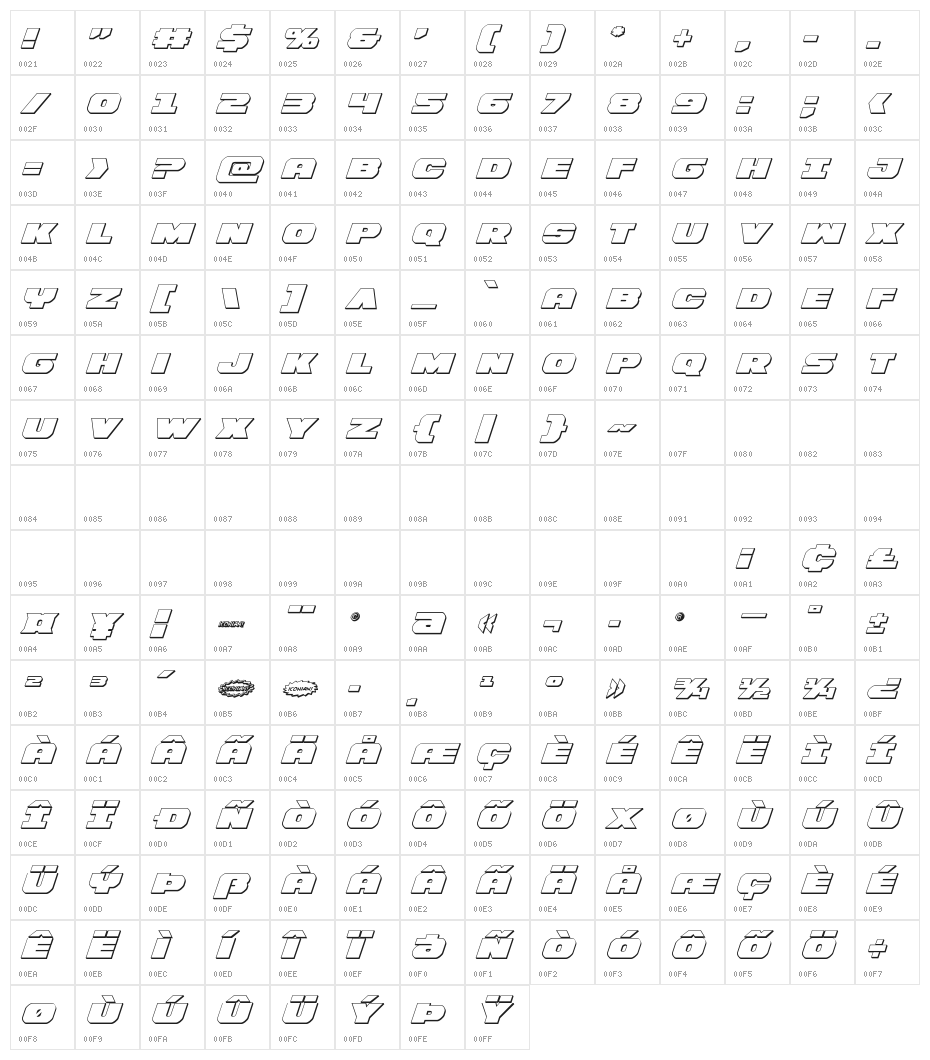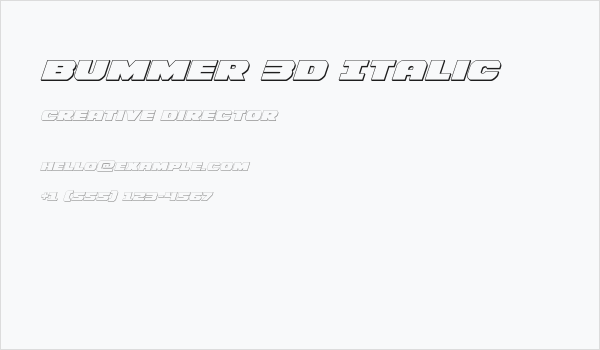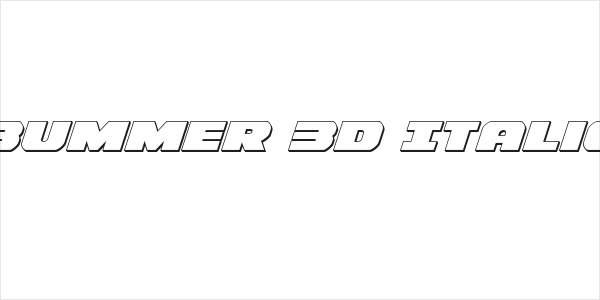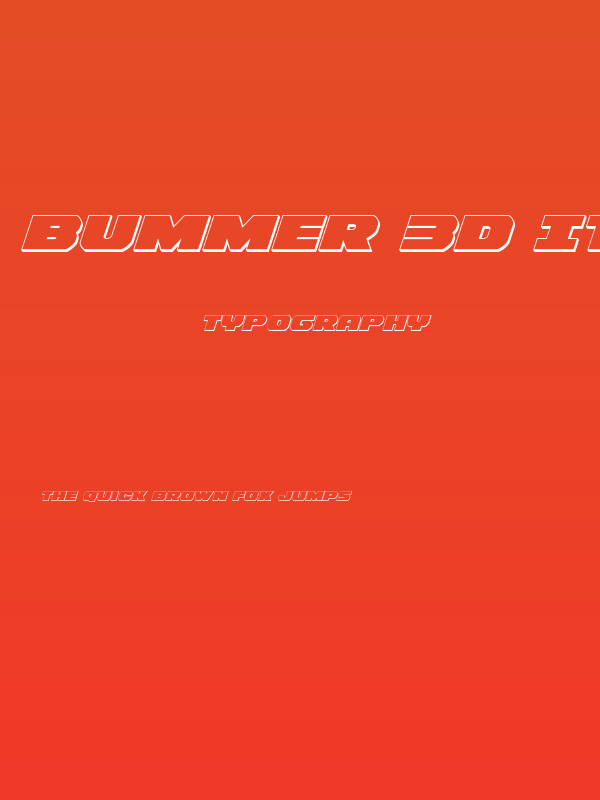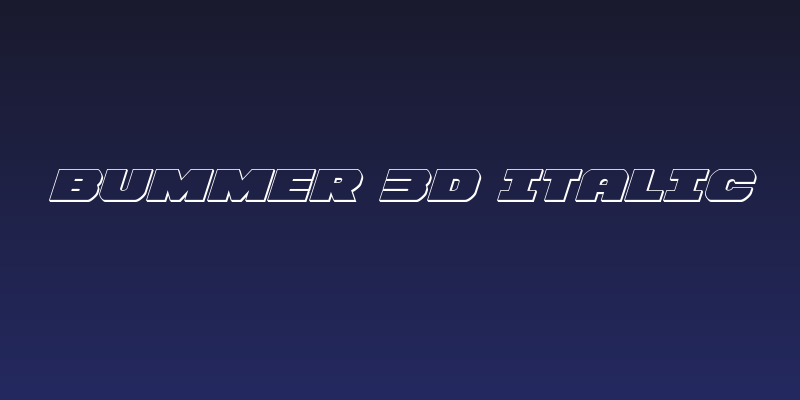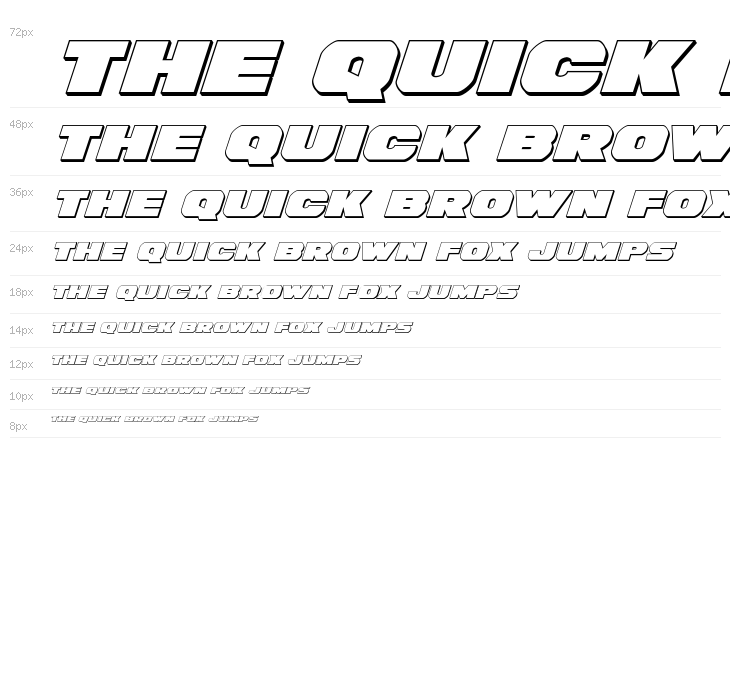
Bummer 3D Italic Font
Bummer 3D Italic Description
This bold, three-dimensional font features a strong, impactful presence with its italicized style. The characters are outlined, giving them a distinct, shadowed effect that enhances their 3D appearance. The font's geometric structure is consistent across all letters and numbers, providing a cohesive look. Its boldness and unique style make it stand out, suitable for projects that require a modern and dynamic touch. The spacing between characters is normal, ensuring readability while maintaining its striking visual appeal.
| Proposed Projects | Ideal for headlines, posters, logos, and any design needing a bold, eye-catching font. |